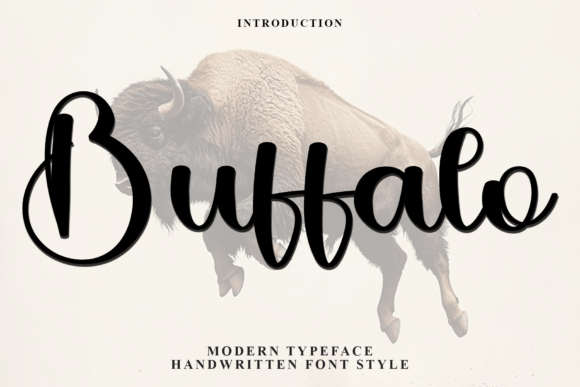
The Designer’s Delight: Exploring the Beautiful Buffalo Font
I still remember the time I was working on a project for a client who wanted a font that was both elegant and playful. I had spent hours scouring the internet for the perfect font, but nothing seemed to fit the bill. That was until I stumbled upon the Buffalo font. Its unique, soft touch and distinctive strokes immediately caught my eye, and I knew I had found the one. In this article, I’ll share my experience with the Buffalo font, its features, and how to make the most of it in your design projects.
An Honest Review of Buffalo Font
What I Love About Buffalo Font
- ✨ Unique and eye-catching design: The Buffalo font has a special character that sets it apart from other fonts.
- ✅ Versatile: It’s perfect for a wide range of design projects, from crafts to creative works.
- 🌈 Variety of characters: The font comes with a range of characters, making it ideal for projects that require a bit of flair.
While the Buffalo font is amazing, there are a few things to keep in mind:
- ⚠️ Limited availability of certain characters: Some characters may not be available in the standard font set, but this can be easily resolved by using OpenType features.
- 🤔 May require some experimentation: To get the most out of the font, you may need to experiment with different sizes, styles, and combinations.
The Backstory of Buffalo Font
The Buffalo font was designed by a team of talented typographers who wanted to create a font that was both unique and versatile. Inspired by the natural world, the font features soft, rounded edges and distinctive strokes that give it a special character. Whether you’re a designer, crafter, or creative hobbyist, the Buffalo font is sure to inspire your next project.
| What is the Buffalo font? | The Buffalo font is a beautiful and eye-catching font designed with a soft, unique touch. |